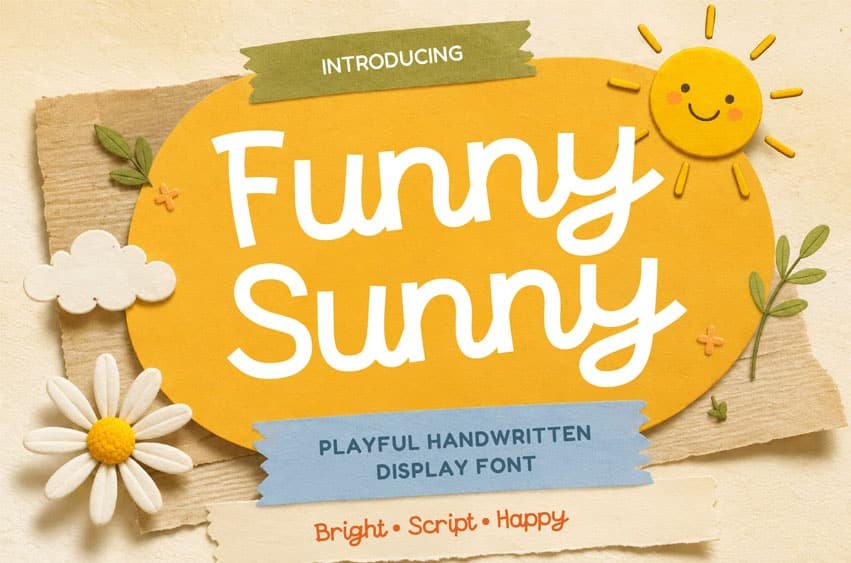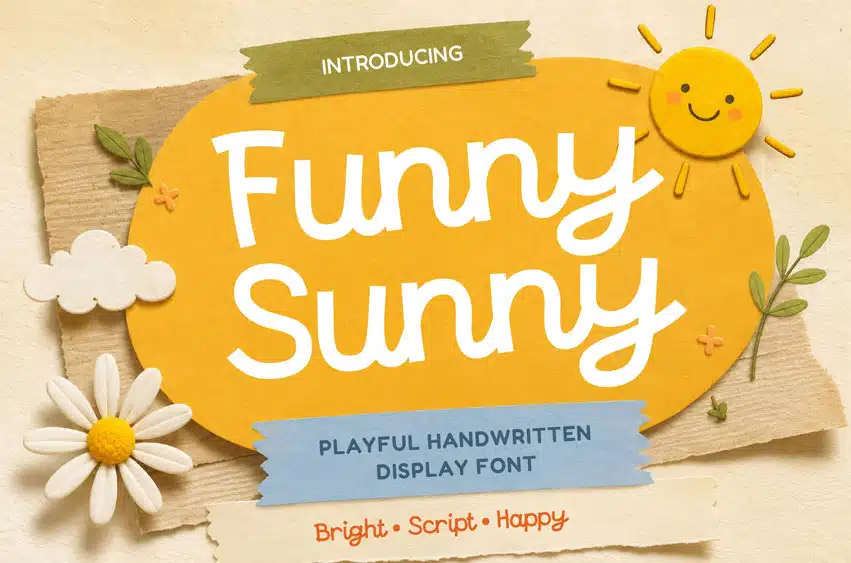
Funny Sunny Font is a playful handwritten display font with soft, rounded, and cheerful letterforms that bring warmth and happiness to every design. Inspired by sunshine, childhood memories, and handmade creativity, this typeface is perfect for creating bright, friendly, and heartwarming visuals.
Whether you’re working on children’s books, logos, branding, packaging, social media graphics, invitations, or other creative designs, Funny Sunny adds a joyful handmade touch that makes every project feel more personal and fun.
- Children’s books, logos, branding, packaging, invitations, social media graphics, merchandise, and more.
This typeface has been carefully designed with attention to every detail, making it both versatile and enjoyable to use across a wide variety of creative projects.